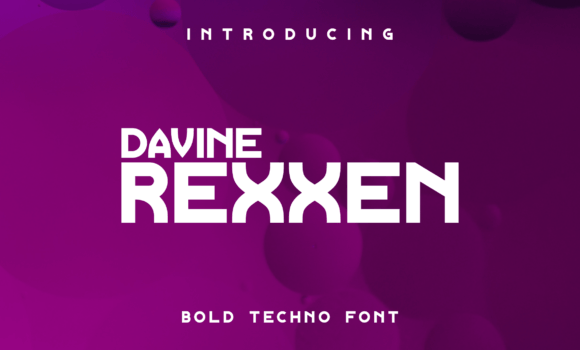
Davine Rexxen Font – Free Download Introduction to Davine Rexxen Font Davine Rexxen is a bold and futuristic display font that exudes trendiness and technological vibes. 📸 Preview Gallery 3 images 📌 Product Name Davine Rexxen Font 👤 Author ponuppo